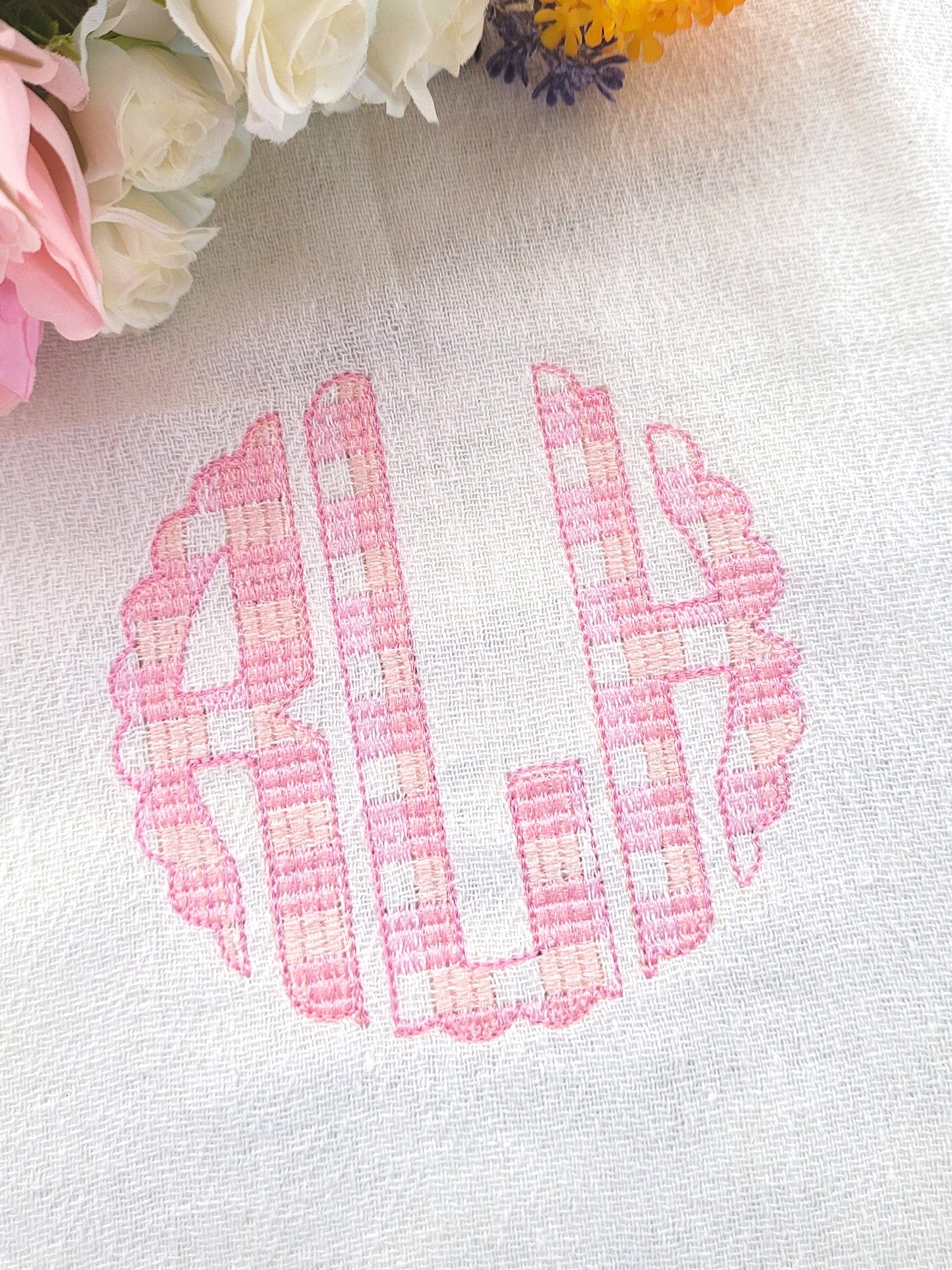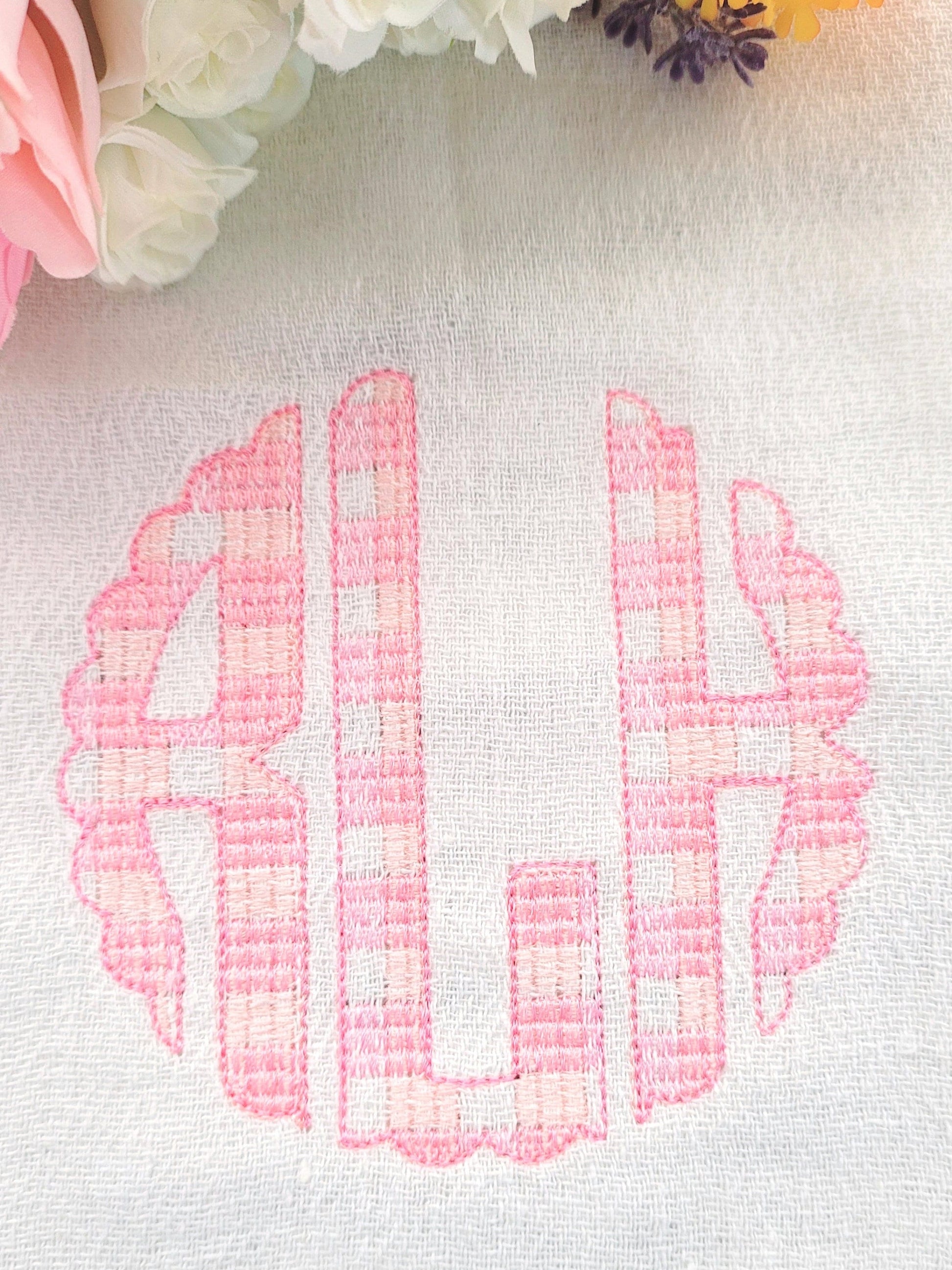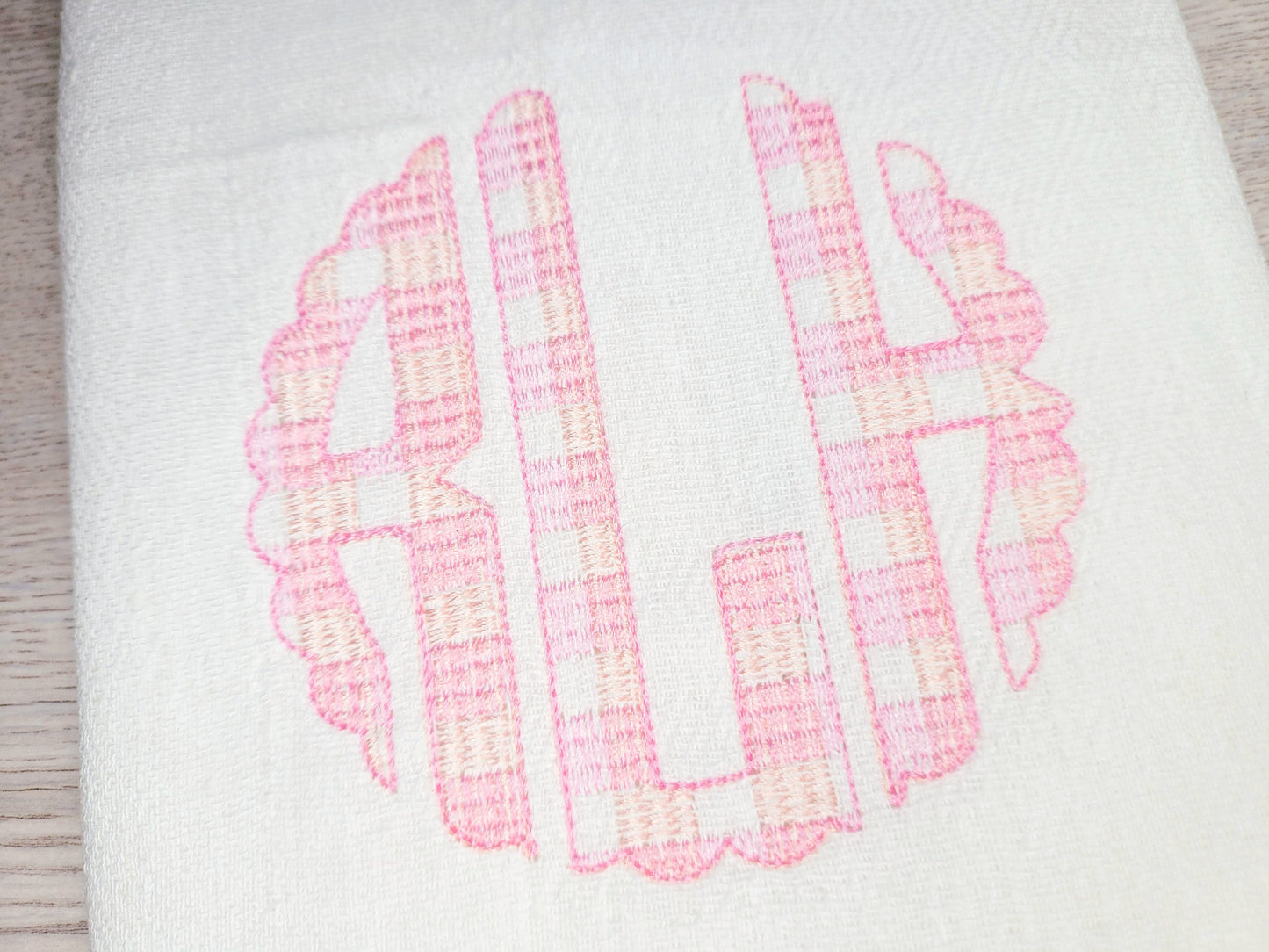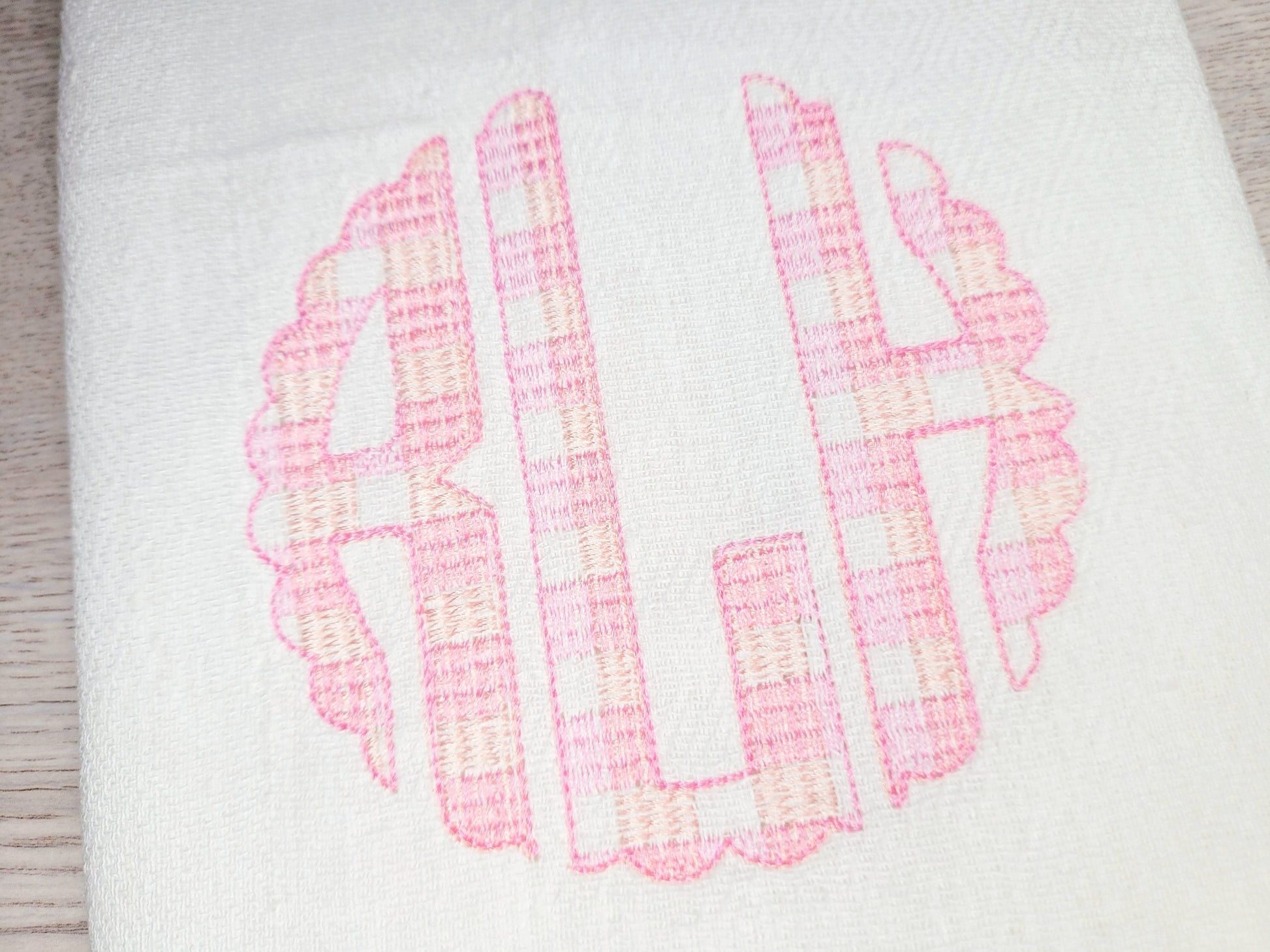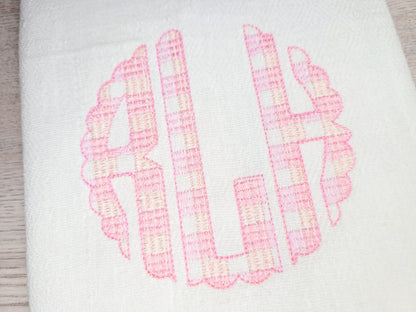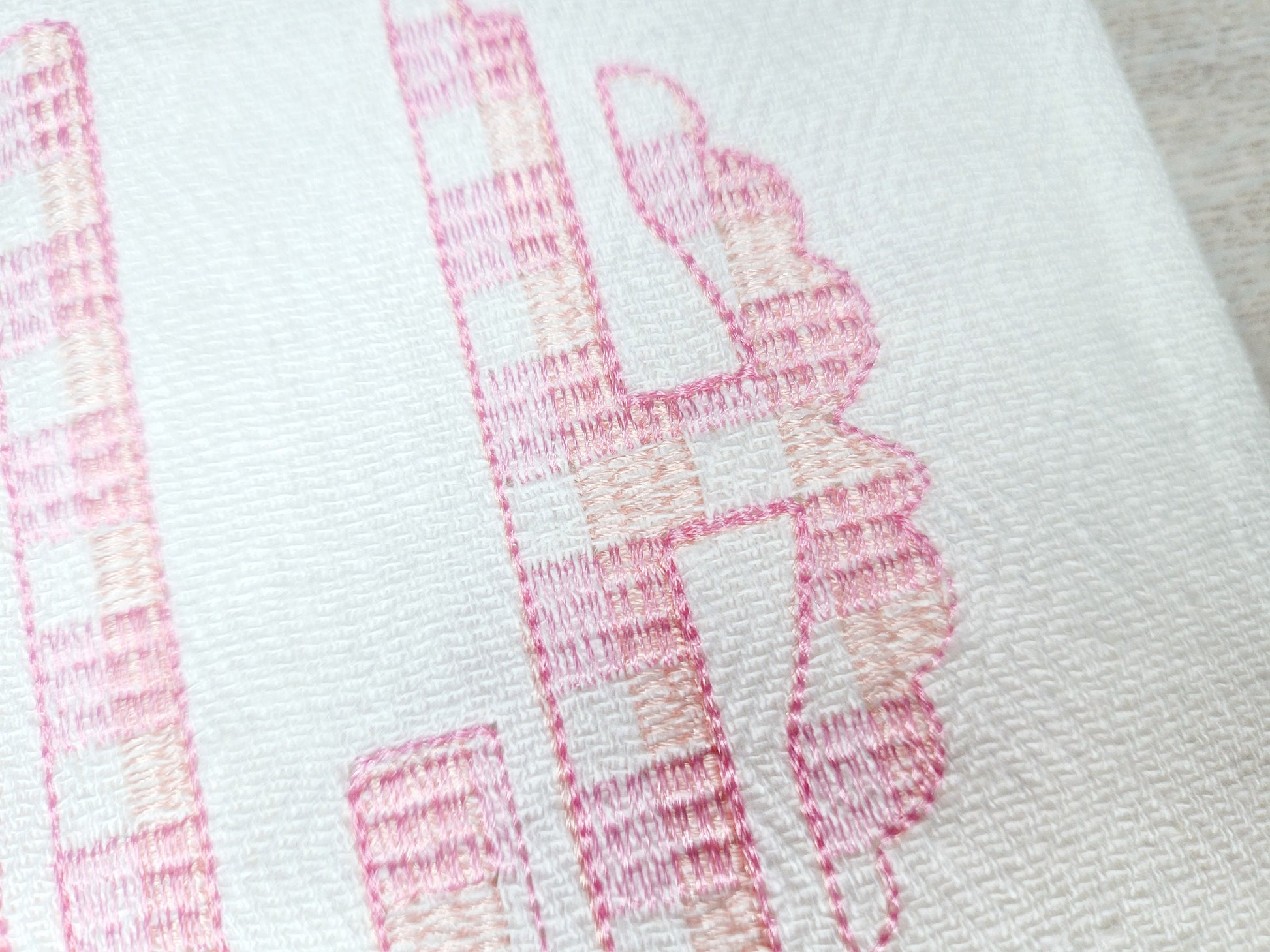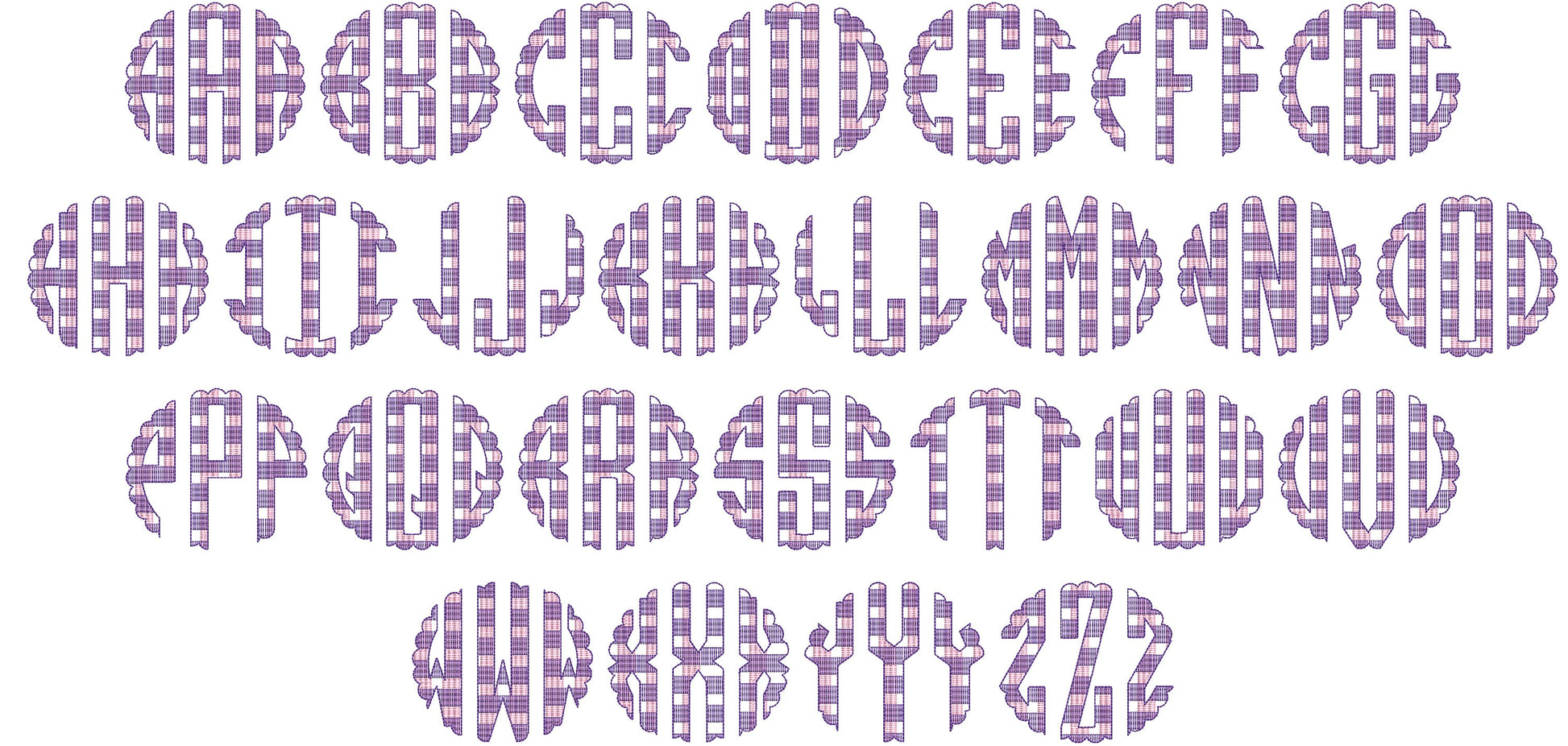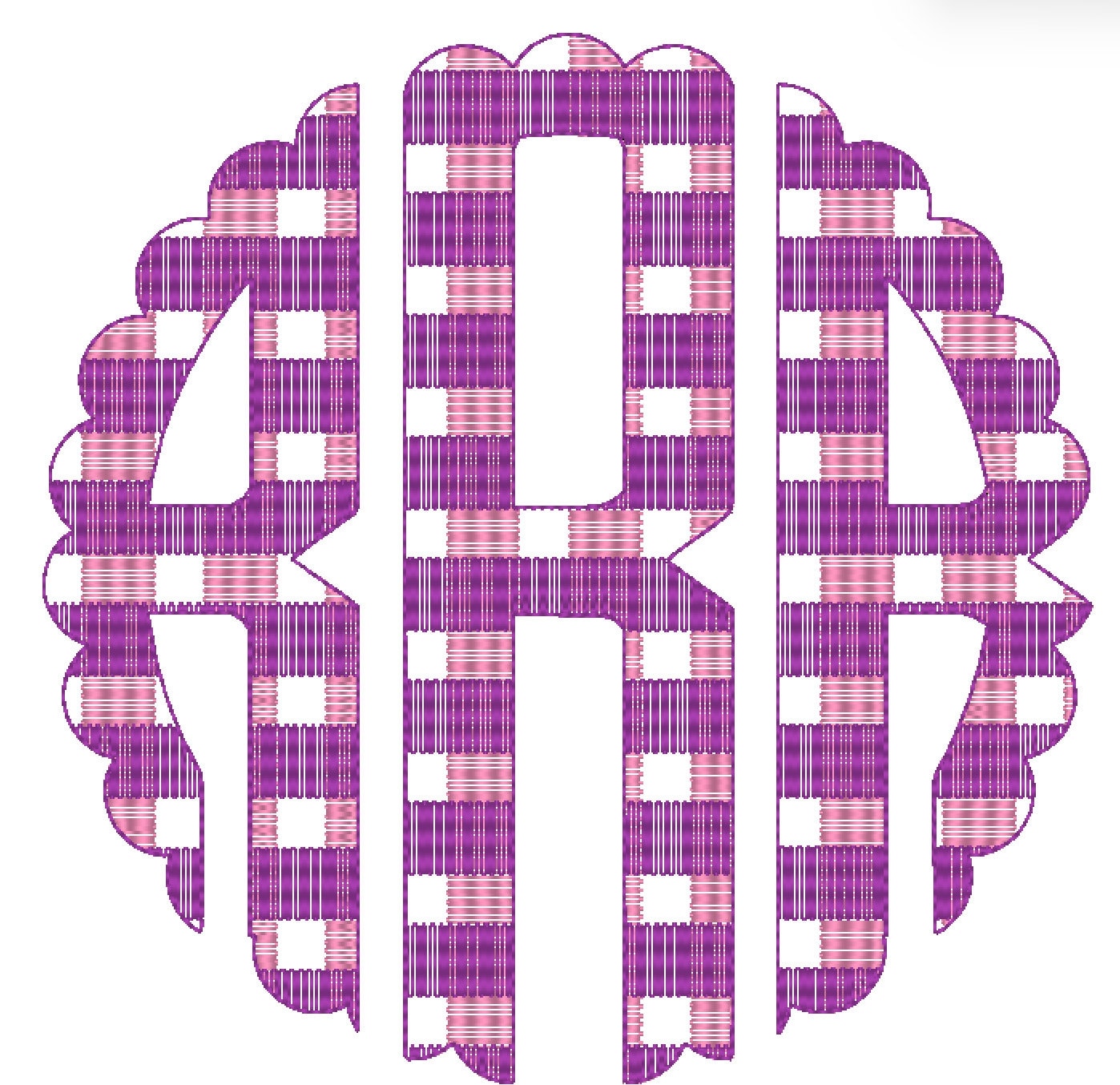
Scalloped Plaid Gingham Circle Monogram Font
Or click to open the linkScalloped Plaid gingham checkered Tartan Circle Monogram font machine embroidery design, classic three letters circled round monogram and Included 78 individual files, fill Stitchwith a tartan checked pattern.
The tartan checked effect is a part of the design.
Letters.
26 Left
26 Center
26 Right